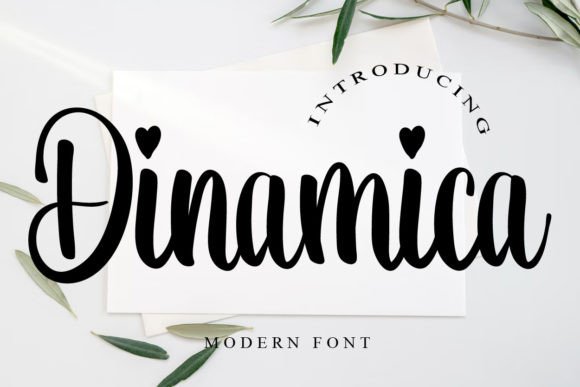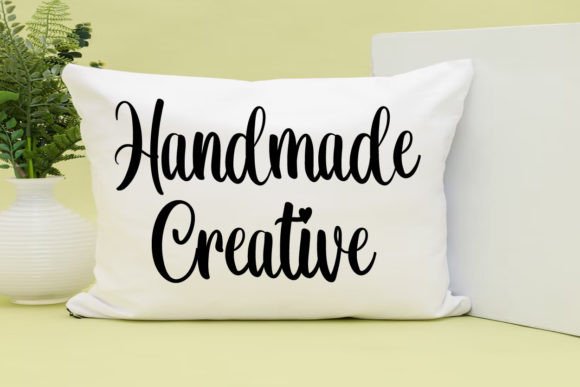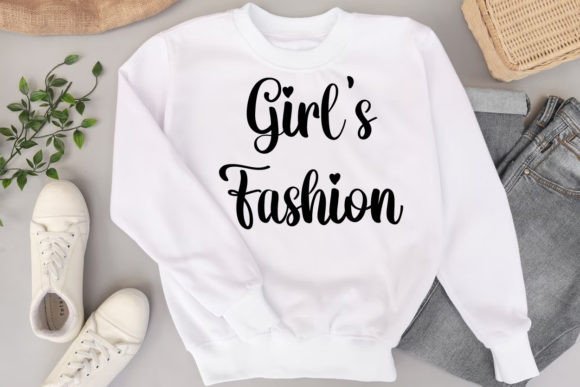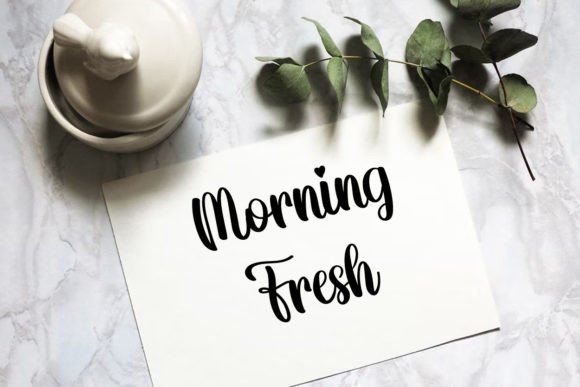
About Dinamica Font
“Dinamica” is more than just a font; it’s a fresh and relaxed script typeface designed to infuse a sense of ease into your projects. Perfect for a variety of applications, this font adds a touch of casual charm to YouTube banners, logos, wedding invitations, crafts, and anything else that requires a lovely and personalized touch.
The fresh and relaxed nature of “Dinamica” is evident in its script design. The font is crafted to convey a sense of comfort and informality, making it ideal for projects that seek a friendly and approachable look. Whether you’re creating content for YouTube, designing a logo, or working on wedding invitations, “Dinamica” brings a laid-back and welcoming vibe to your text.
Versatility is one of the key strengths of “Dinamica.” It adapts effortlessly to different design contexts, making it a reliable choice for a wide range of creative projects. The font becomes a valuable asset for designers who want a typeface that effortlessly combines a relaxed feel with a personalized touch.
Adding “Dinamica” to your font collection opens up a world of possibilities for creating content that feels approachable and warm. The font stands out as a versatile tool that can enhance the visual appeal of your projects. Let “Dinamica” be the font that adds a touch of relaxation to your YouTube banners, logos, wedding invitations, and various other creative endeavors.
In summary, “Dinamica” is more than just a font; it’s a fresh and relaxed script typeface designed to bring ease and charm to your projects. Embrace its casual and versatile nature, and confidently add it to your font library. “Dinamica” is an invitation to explore the laid-back possibilities it brings to your design projects.